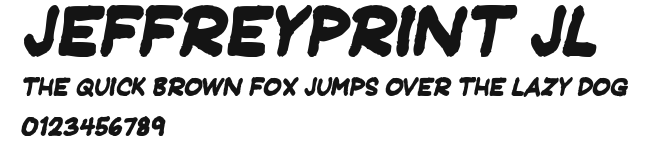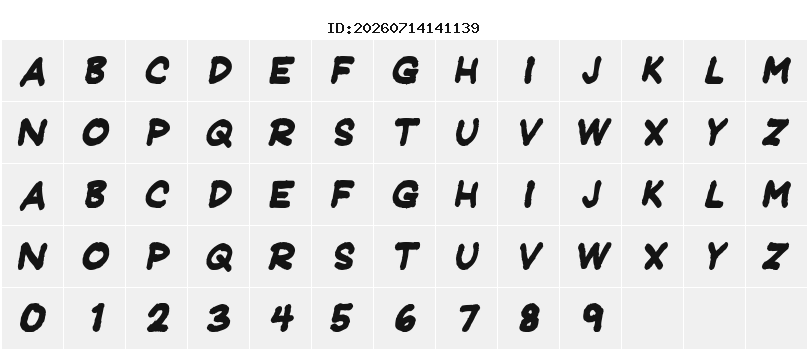
• Font Name: JeffreyPrint JL
• Designer: Jeffrey N. Levine
• Manufacturer: Jeff's Fonts & Dingbats
• Description: My own hand printing. Additional characters and style variations courtesy of Ray Larabie.
About JeffreyPrint JL.ttf
JeffreyPrint JL.ttf is a modern, elegant sans-serif font designed for ultimate readability and visual harmony. Perfect for branding, headlines, web design, and print materials.